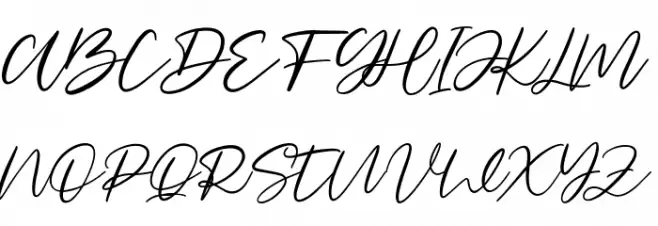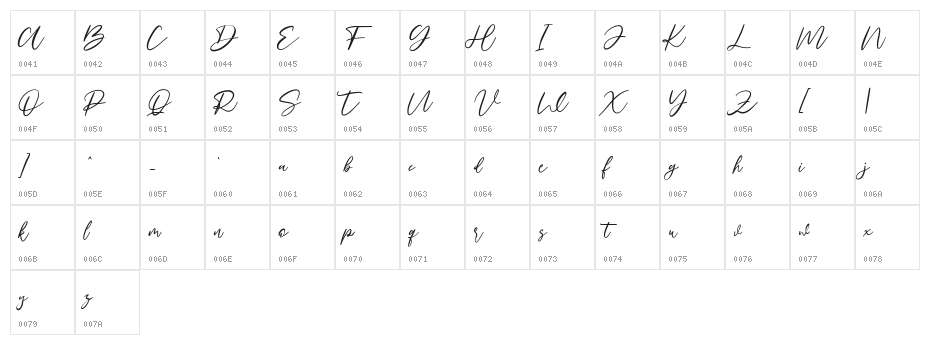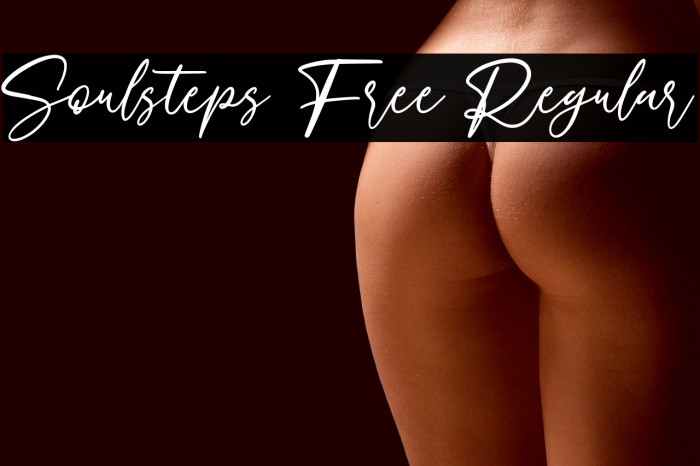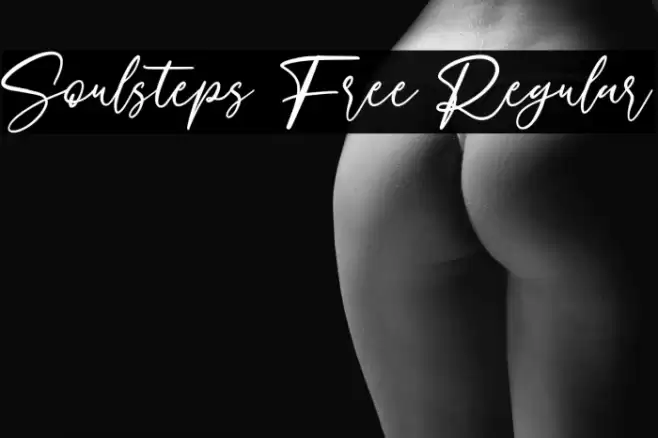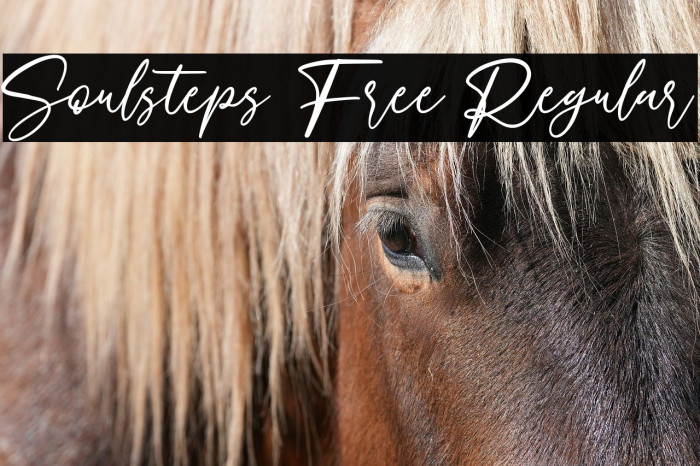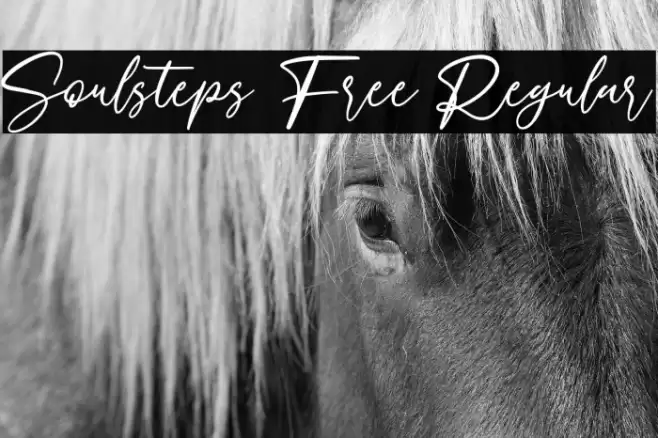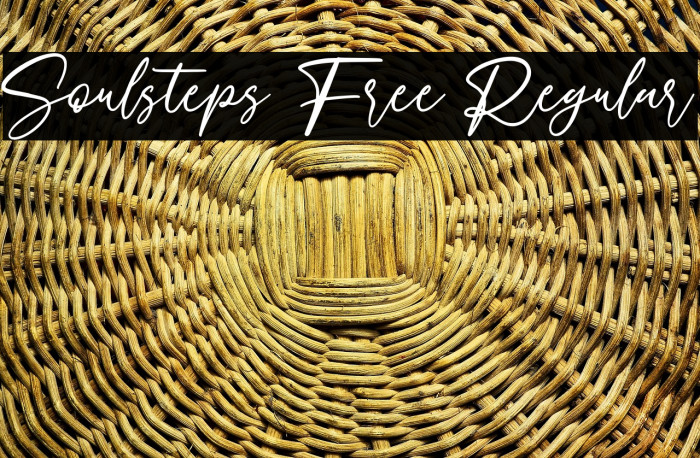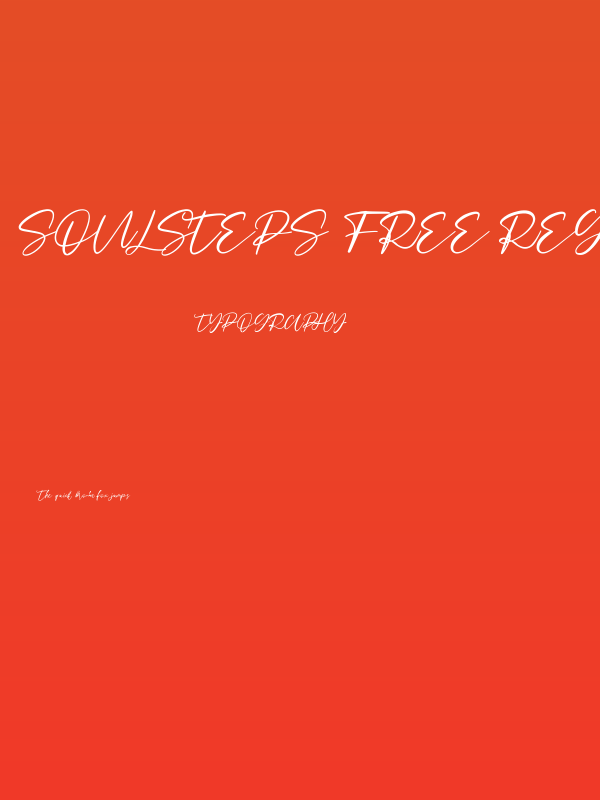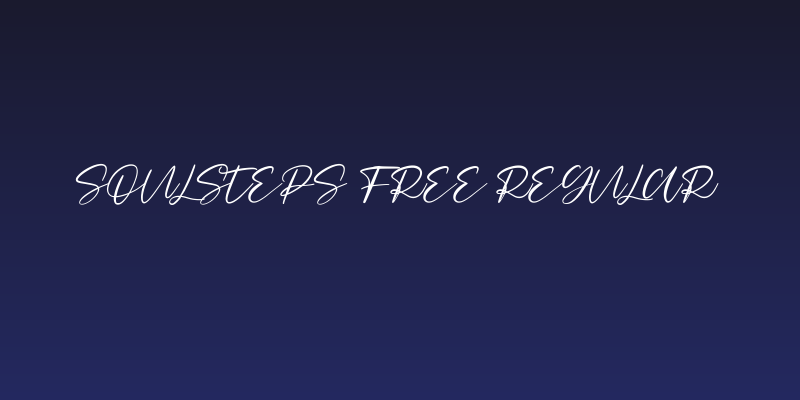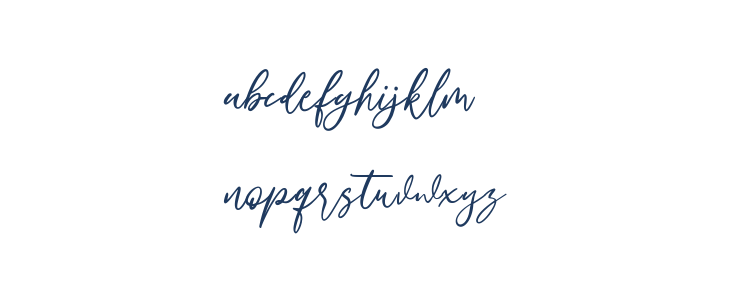
Soulsteps Free Regular Font
Soulsteps Free Regular Description
This font features a flowing, cursive style with elegant, sweeping strokes that give it a handwritten appearance. The characters are interconnected, creating a seamless and fluid look. The uppercase letters are bold and prominent, while the lowercase letters maintain a consistent flow, enhancing the script's graceful aesthetic. The font's design is both sophisticated and approachable, making it suitable for a variety of creative projects. Its unique style captures attention and adds a personal touch to any design.